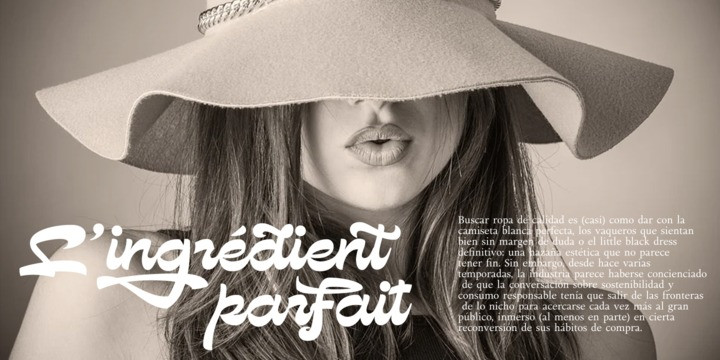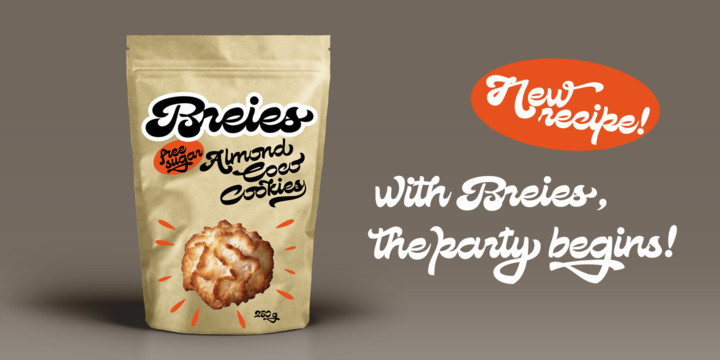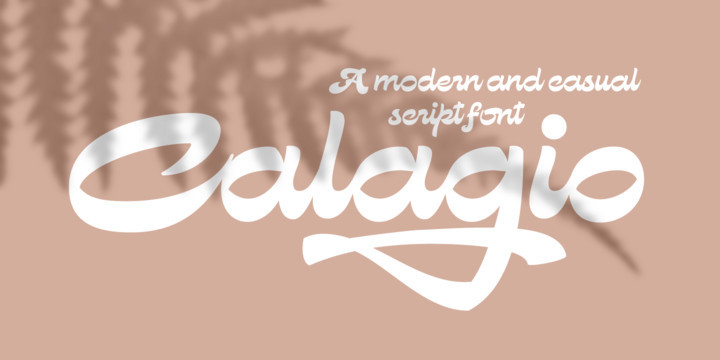
Calagio Font
Calagio is a casual and modern font, which can be categorized as expressive lettering style. This font contain 565 glyphs carefully designed, with OpenType features. A lot of alternative glyphs in upper and lower case letters, ligatures and ornaments, so you can combine and make your design more real at your convenience.